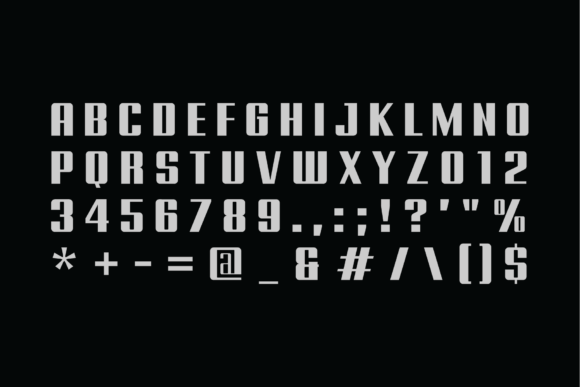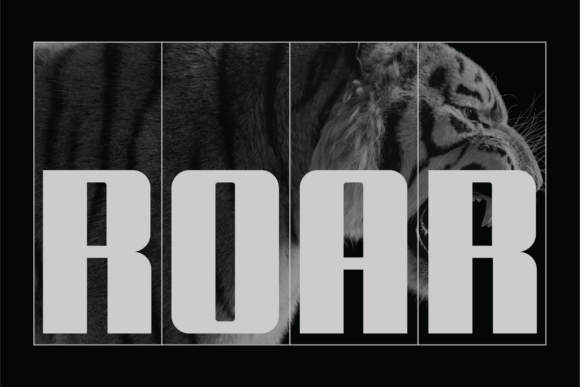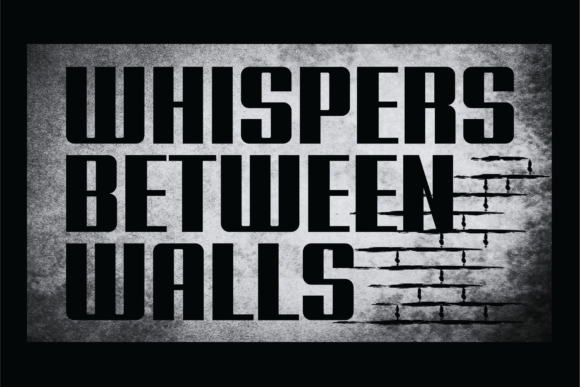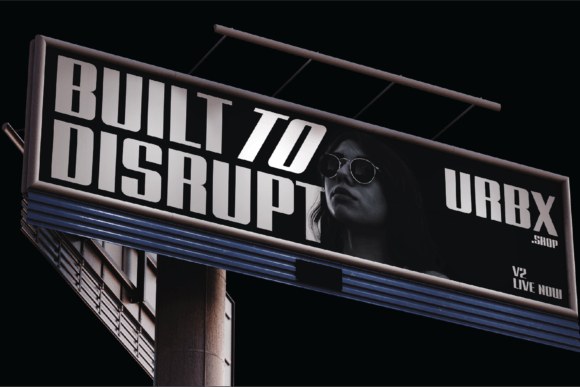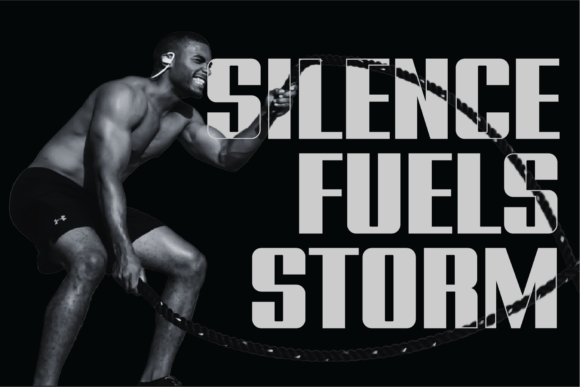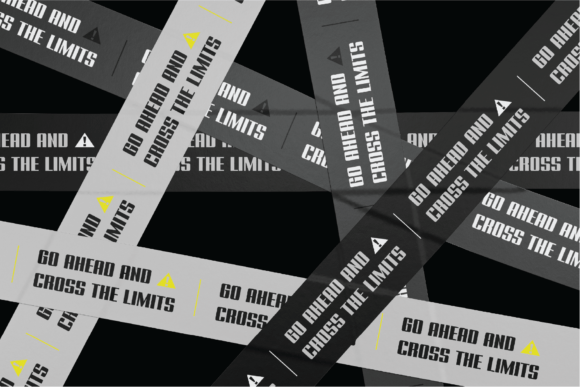
The Power of Bensa Font: A Designer’s Best Friend
I still remember the project like it was yesterday. I was working on a branding campaign for a new energy drink company, and I needed a font that would scream “energy” and “boldness.” I scoured the internet, tried out dozens of fonts, but nothing seemed to fit the bill. That was until I stumbled upon Bensa Font. This super bold, condensed sans serif font has been a game-changer for me, and I’m excited to share its awesomeness with you! 😊
An Honest Review of Bensa Font
What I Love About Bensa Font
• ✨ Super bold and condensed: Bensa Font is perfect for making a statement. Its thick lines and sharp edges give it a strong, modern vibe that’s hard to ignore.
• ✅ Attention-grabbing: This font doesn’t whisper, it roars! It’s perfect for bold messages, powerful branding, and headlines that need to make an impact.
• 💡 Versatile: Bensa Font can be used for a wide range of projects, from posters and flyers to social media graphics and website headers.
While Bensa Font is an amazing font, it’s not perfect. Here are a few things to keep in mind:
• 🤔 Legibility at small sizes: Due to its condensed nature, Bensa Font can be a bit tricky to read at small sizes. Make sure to use it at a large enough size to ensure legibility.
• ⚠️ Overuse: While Bensa Font is perfect for making a statement, overusing it can be overwhelming. Use it sparingly to maximize its impact.
Bensa Font comes with a range of OpenType features and glyphs that can enhance your designs. Here are a few tips:
• Experiment with different Stylistic Alternates to create unique variations of your text.
The Backstory of Bensa Font
Bensa Font was designed with one goal in mind: to create a bold and attention-grabbing font that would make a statement. Inspired by modernist and brutalist architecture, Bensa Font’s creator aimed to distill the essence of strength and confidence into a single font. The result is a font that’s both powerful and elegant.
Q: What is Bensa Font best used for?
A: Bensa Font is perfect for bold messages, powerful branding, and headlines that need to make an impact.
Q: Is Bensa Font suitable for body text?
A: While Bensa Font can be used for body text, it’s not recommended due to its condensed nature. It’s best used for headlines and titles.